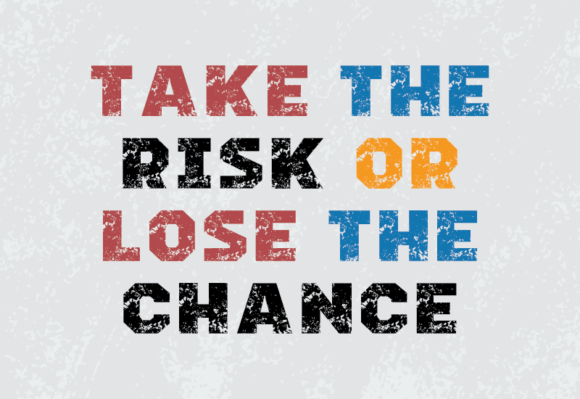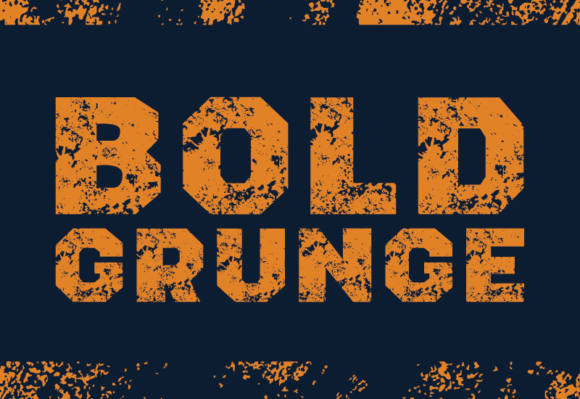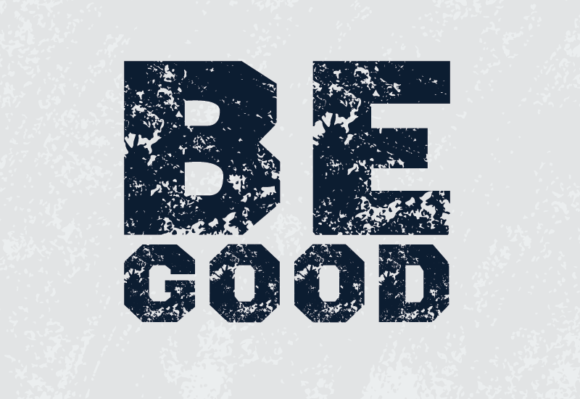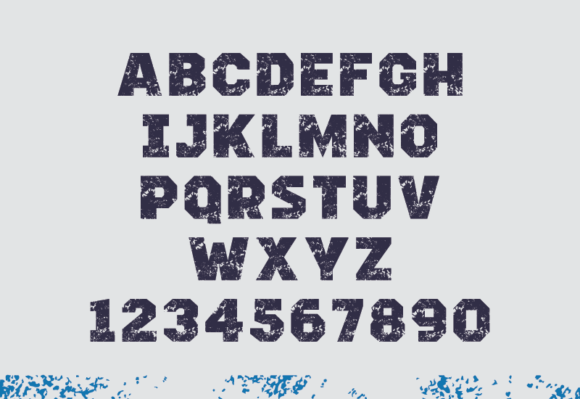
Unleash Your Creativity with Bold Grunge Font: A Typography Revolution
In the world of typography, fonts play a crucial role in conveying the tone and personality of a brand or design. For those seeking a bold and daring aesthetic, the ‘Bold Grunge’ sans-serif font is an ideal choice. This distinctive font radiates uniqueness, transcending the realms of simple bold typography. With its jagged lines and rustic texture, Bold Grunge fosters a sense of resilience and defiance, making it perfect for ventures that relish audacious endeavors.
The Essence of Bold Grunge Font
Bold Grunge is more than just a font; it’s a statement. Its bold demeanor is unafraid to stand apart, providing an ideal textual contrast for designs that crave attention. The font’s rugged texture and uneven lines evoke a sense of raw energy, imbuing your visual narrative with edgy elegance. Whether you’re a designer, craftsperson, or entrepreneur, Bold Grunge offers a typographic solution that will elevate your brand or project to new heights.
Design Characteristics of Bold Grunge Font
The Bold Grunge font boasts several design characteristics that set it apart from other typography styles:
- Jagged Lines: The font’s jagged lines create a sense of tension and dynamism, adding an edgy feel to your designs.
- Rustic Texture: The rustic texture of Bold Grunge gives it a worn, vintage look that’s perfect for designs that require a sense of history or nostalgia.
- Sans-Serif: As a sans-serif font, Bold Grunge offers a clean and modern aesthetic that’s ideal for digital and print designs.
- Bold Demeanor: The font’s bold demeanor ensures that your text stands out, even in crowded design environments.
Perfect for Ambitious Ventures
Bold Grunge is more than just a font; it’s a statement of intent. Its rebellious spirit and daring aesthetic make it perfect for ventures that relish audacious endeavors. Whether you’re launching a new brand, creating a bold advertising campaign, or designing a striking visual identity, Bold Grunge provides the typographic contrast you need to stand out.
Creative Applications of Bold Grunge Font
The versatility of Bold Grunge font makes it suitable for a wide range of creative applications:
- Branding: Use Bold Grunge to create a bold and memorable brand identity that sets you apart from the competition.
- Advertising: The font’s attention-grabbing aesthetic makes it perfect for bold advertising campaigns that demand attention.
- Graphic Design: Bold Grunge is an excellent choice for graphic designers seeking to add an edgy touch to their designs.
- Crafting: Crafters can use Bold Grunge to create unique and eye-catching titles, labels, or signage.
Tips for Using Bold Grunge Font Effectively
To get the most out of Bold Grunge font, consider the following tips:
- Pair with contrasting fonts: Combine Bold Grunge with contrasting fonts to create visual interest and hierarchy.
- Experiment with colors: Try pairing Bold Grunge with bold, bright colors to amplify its impact.
- Use sparingly: Use Bold Grunge sparingly to avoid overwhelming your design; its bold aesthetic is best used to emphasize key messages or calls-to-action.
| Font Name | Bold Grunge Font |
| Author | GraphicsNinja |
In conclusion, the Bold Grunge font is an exceptional typography solution for designers, craftspersons, and entrepreneurs seeking to make a bold statement. With its jagged lines, rustic texture, and bold demeanor, this font radiates uniqueness and distinction. Whether you’re launching a new brand, creating a bold advertising campaign, or designing a striking visual identity, Bold Grunge provides the perfect textual contrast to elevate your visual narrative.